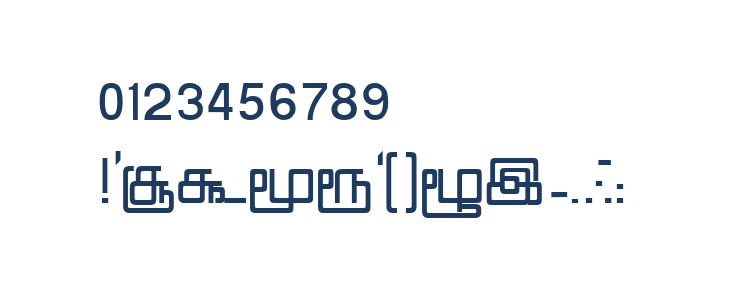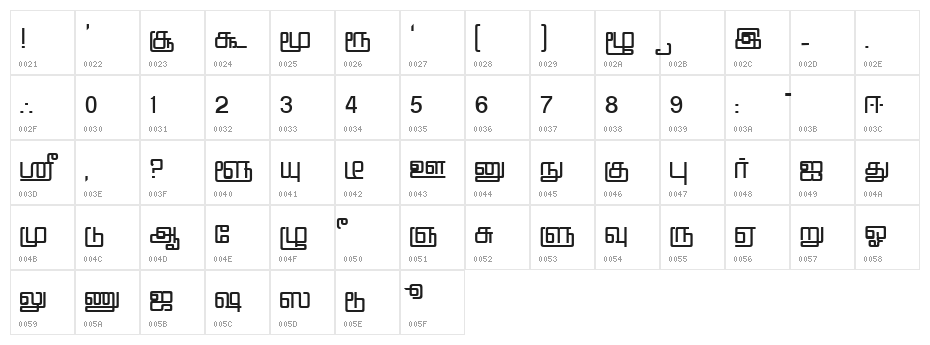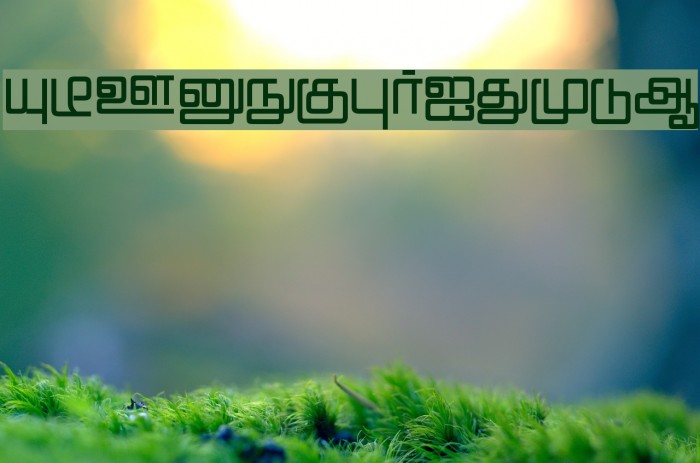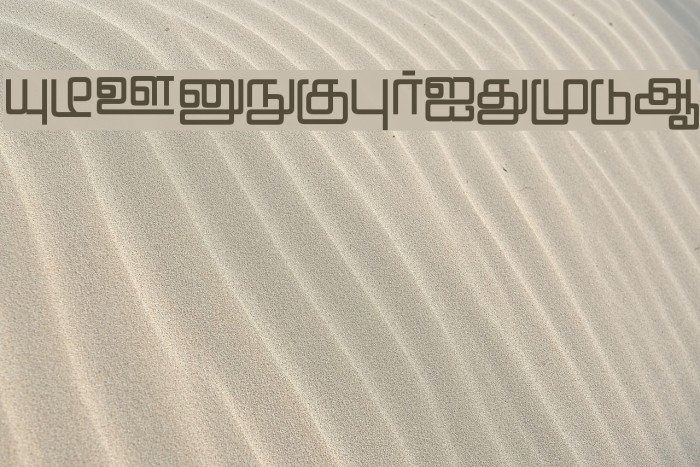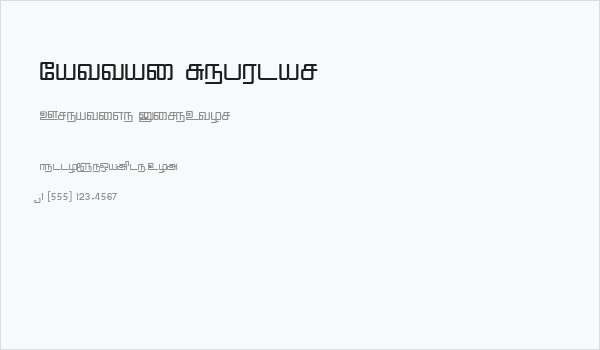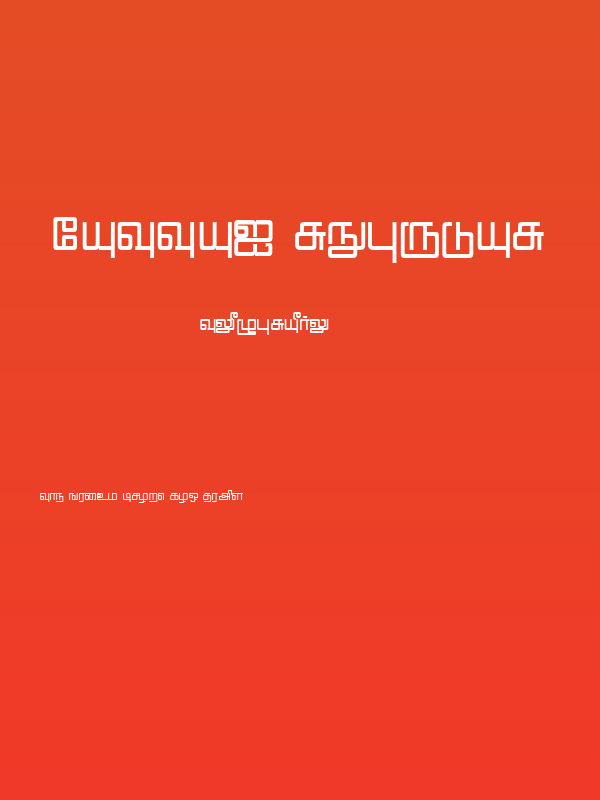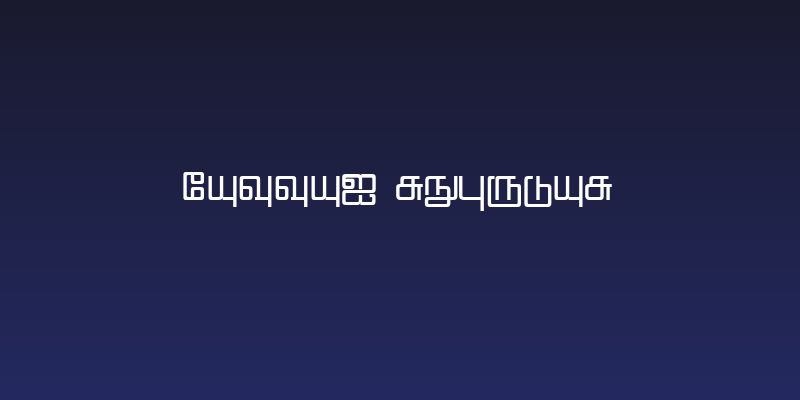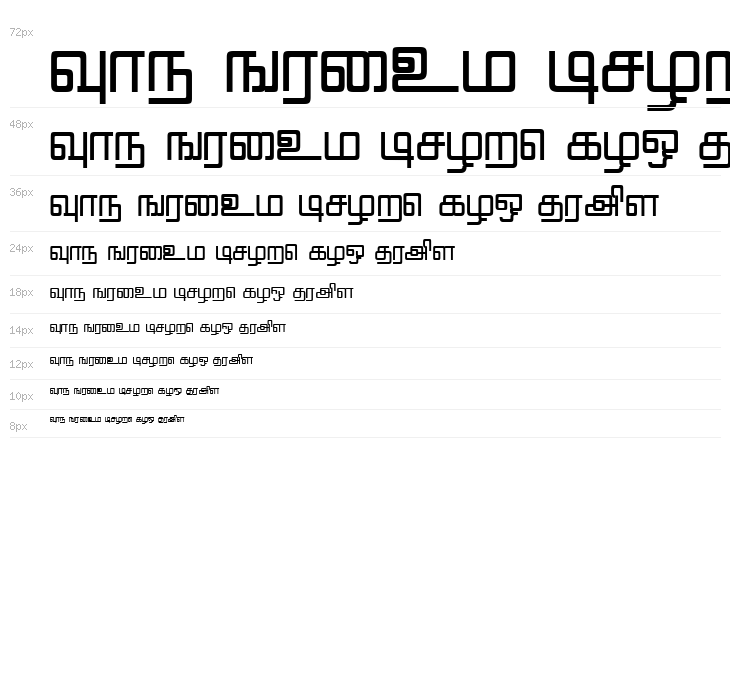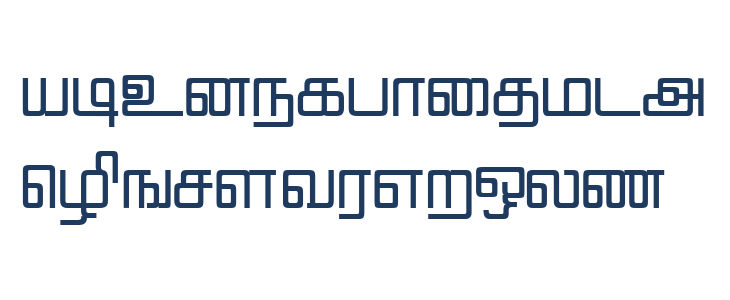
Nattai Regular Font
Nattai Regular Description
This font features a modern and geometric style with clean, rounded edges and a uniform line weight. The characters are designed with a consistent height and width, providing a balanced and harmonious appearance. The numerals and special characters maintain the same geometric aesthetic, ensuring a cohesive look across all elements. The font's simplicity and clarity make it highly legible, suitable for both digital and print media. Its distinct style is ideal for projects that require a contemporary and professional touch.